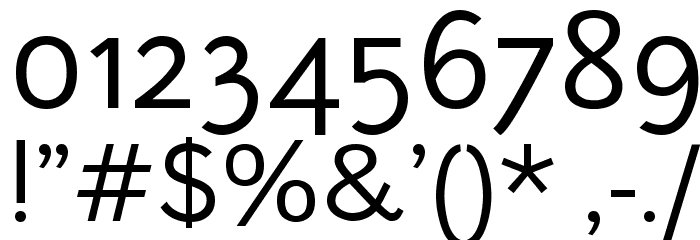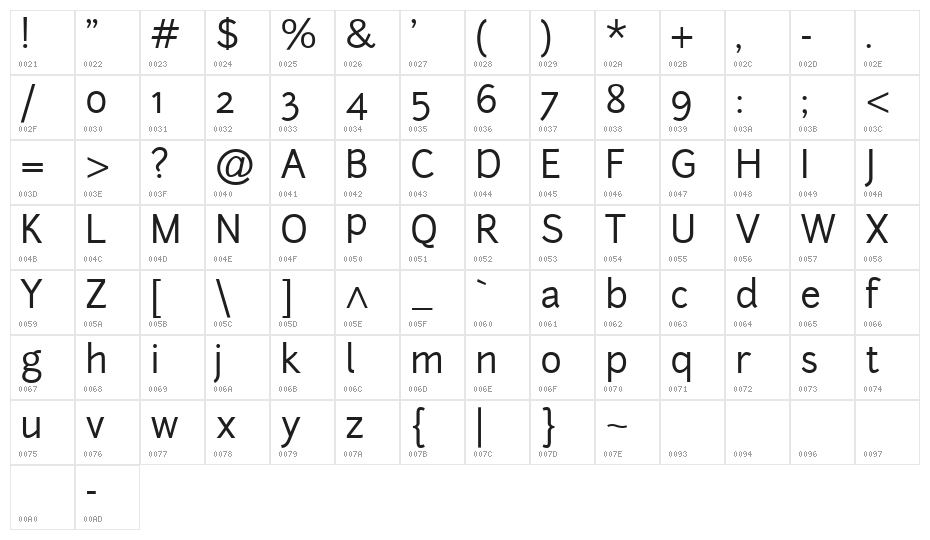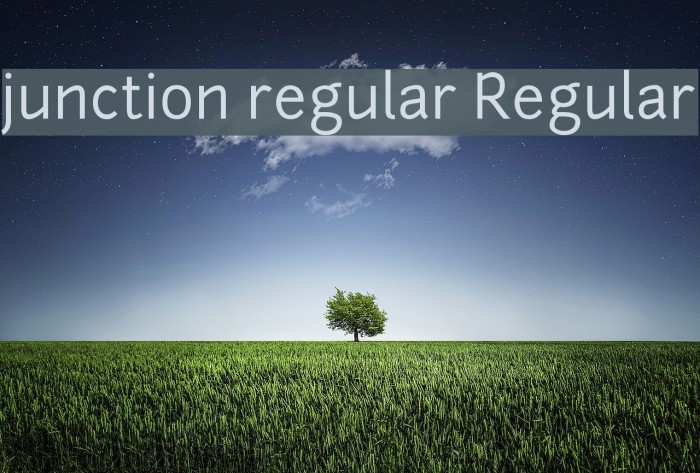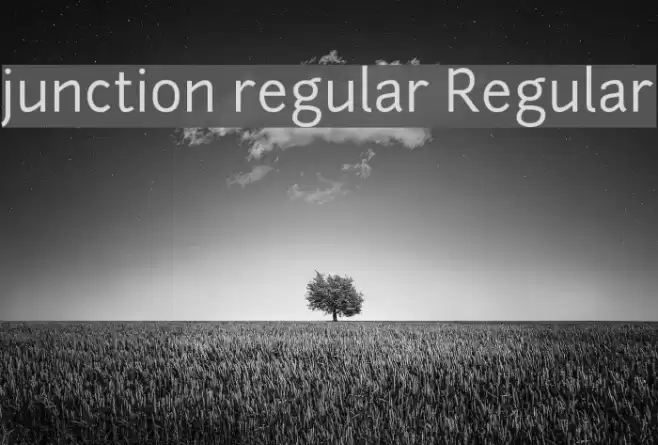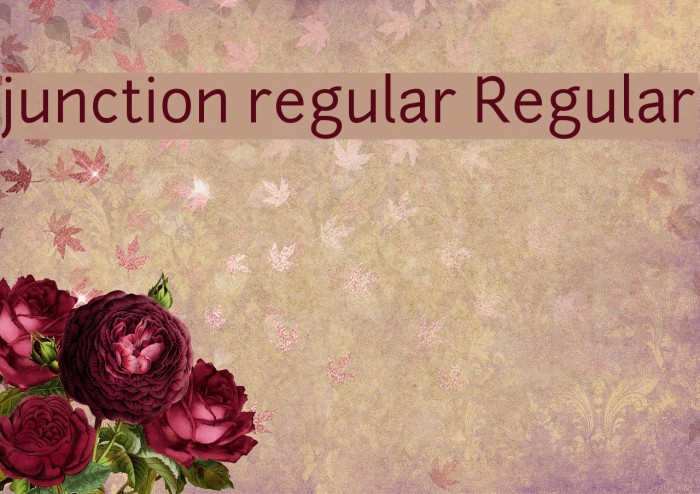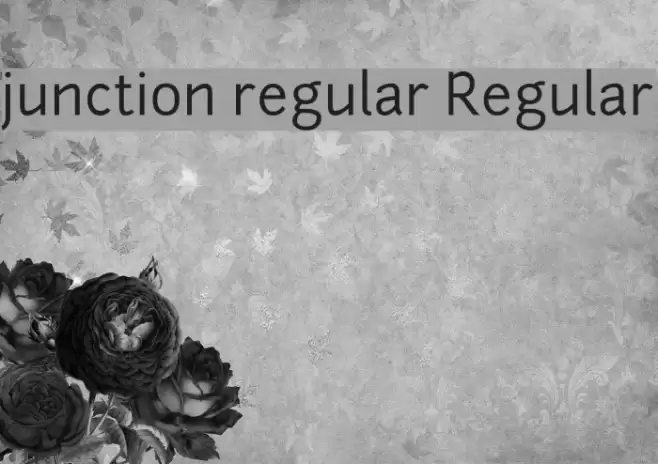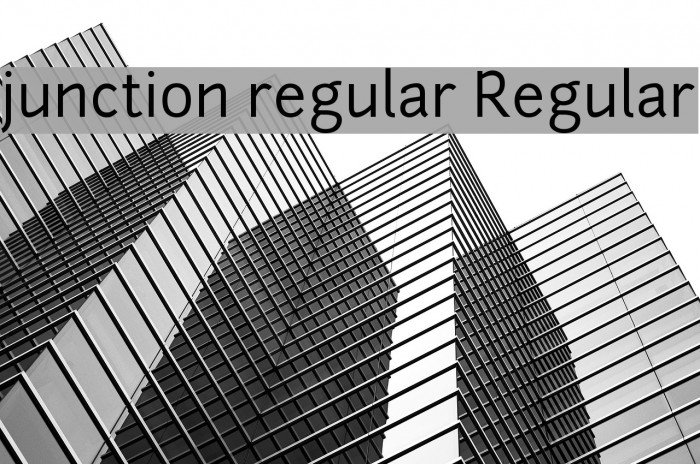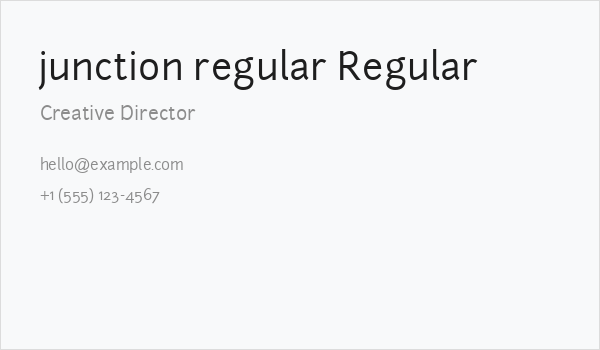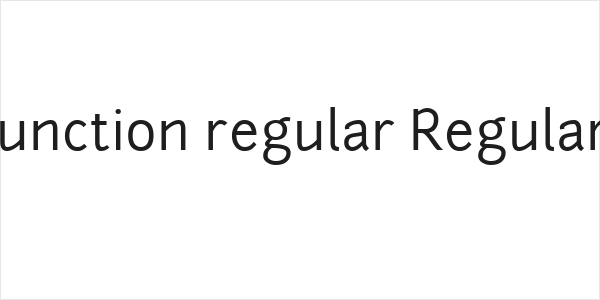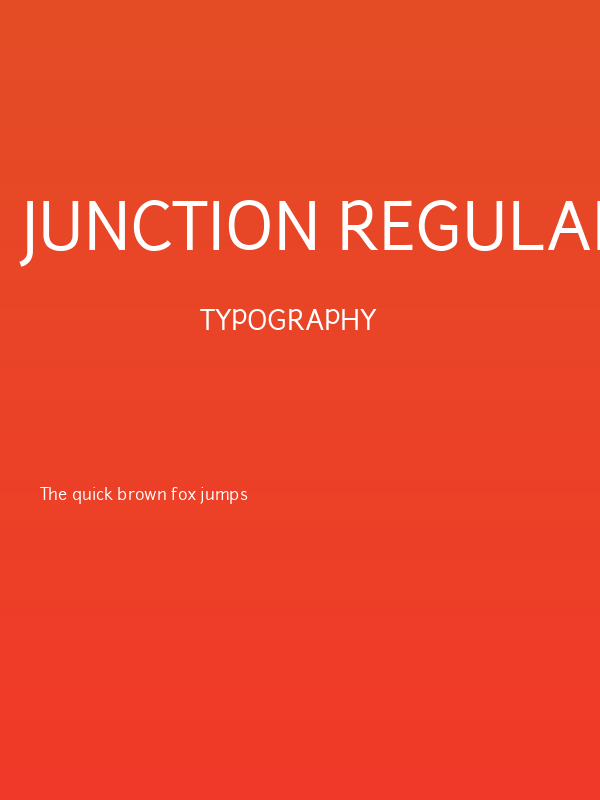
junction regular Regular Font
junction regular Regular Description
This font features a clean and modern sans-serif style with a geometric influence. The characters are well-balanced, offering a harmonious blend of curves and straight lines. The uppercase letters are bold and assertive, while the lowercase letters maintain a friendly and approachable appearance. The numerals are clear and easy to read, making them suitable for various applications. Special characters are designed with simplicity and clarity in mind, ensuring they complement the overall aesthetic. This font is versatile, suitable for both digital and print media, and can be used effectively in a wide range of design projects.
| Proposed Projects | Ideal for branding, web design, advertising, and editorial layouts. |